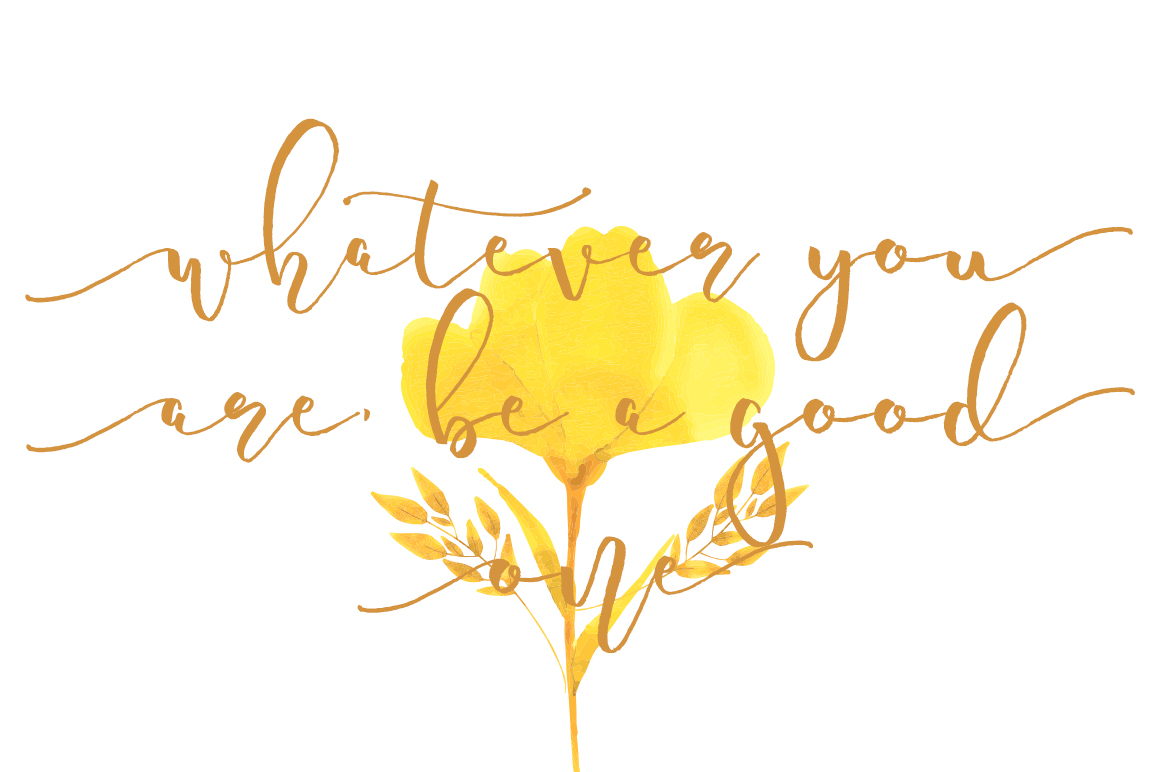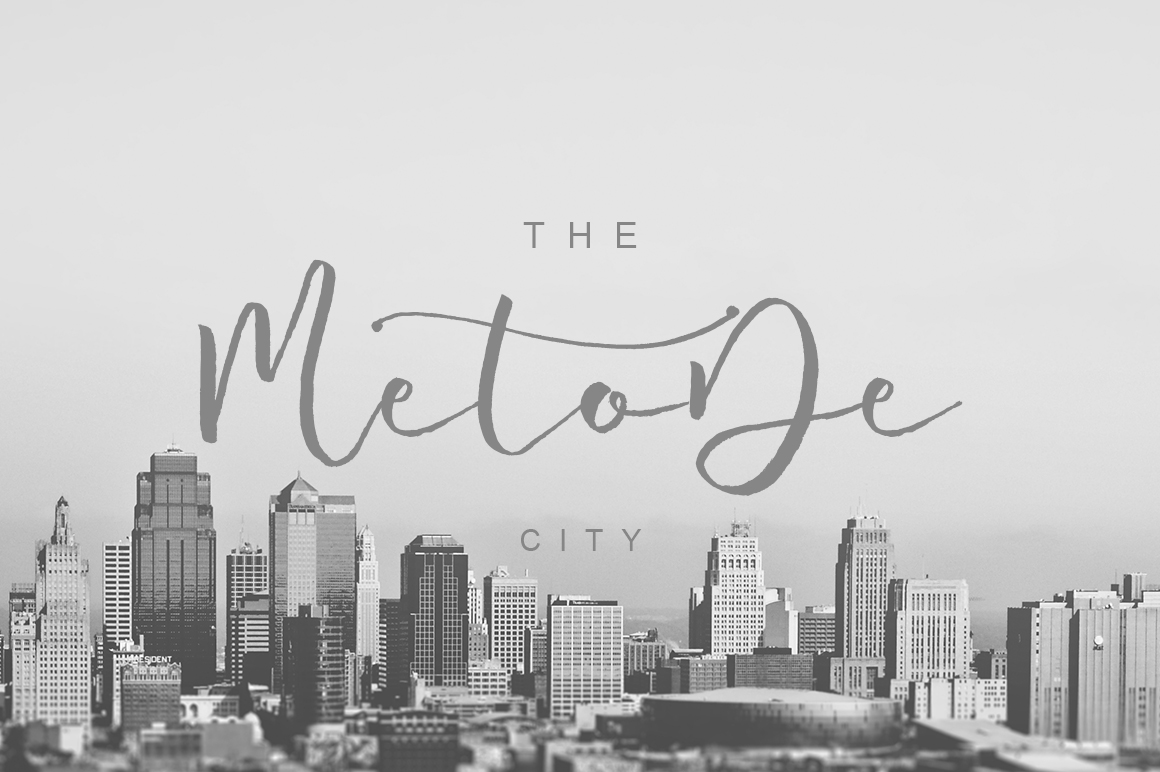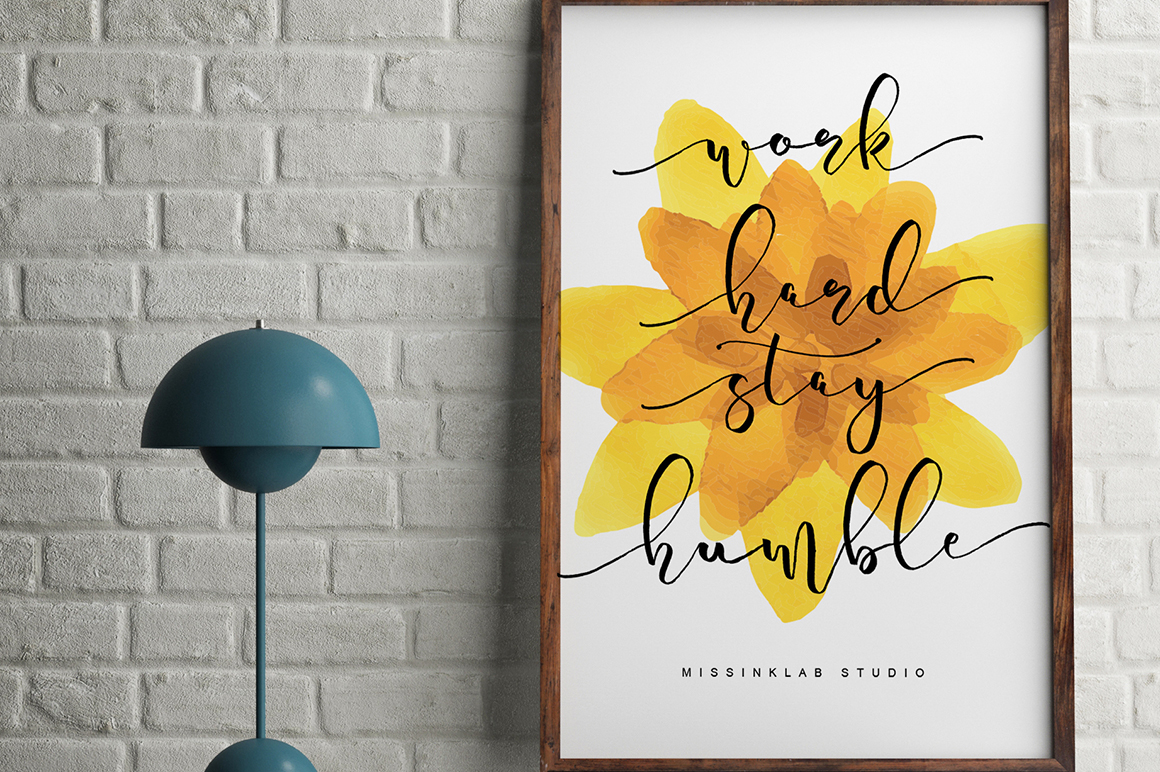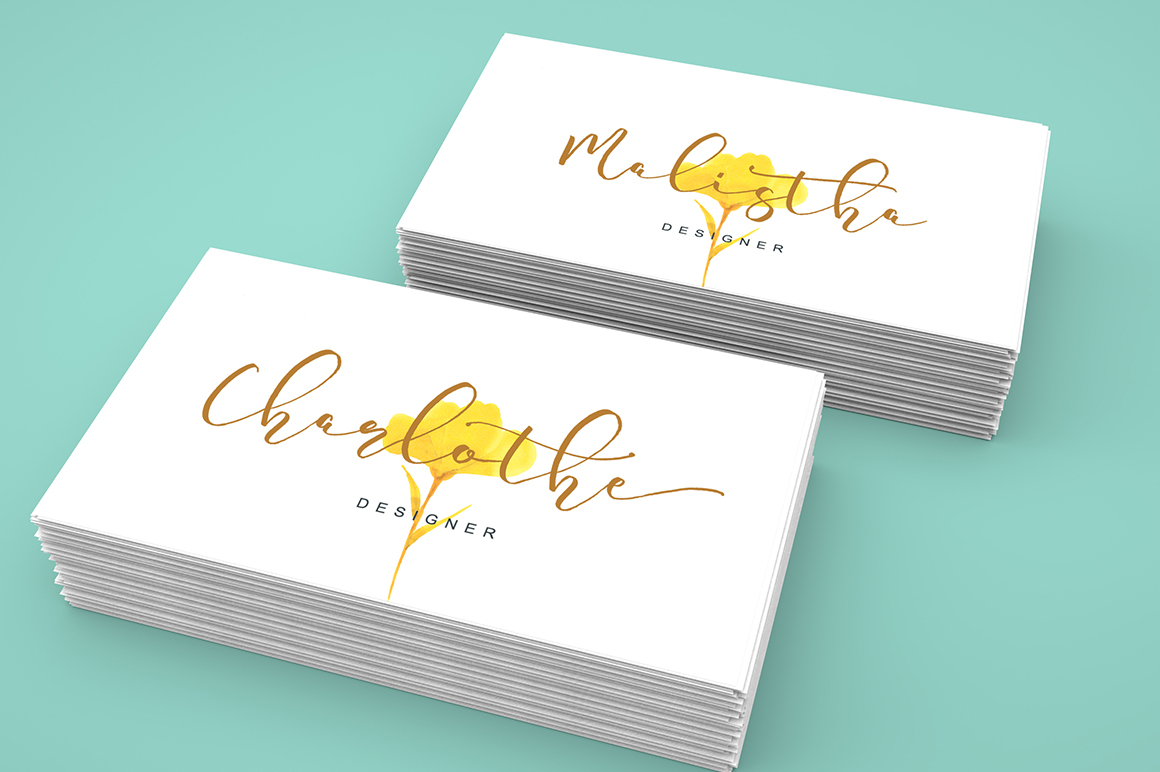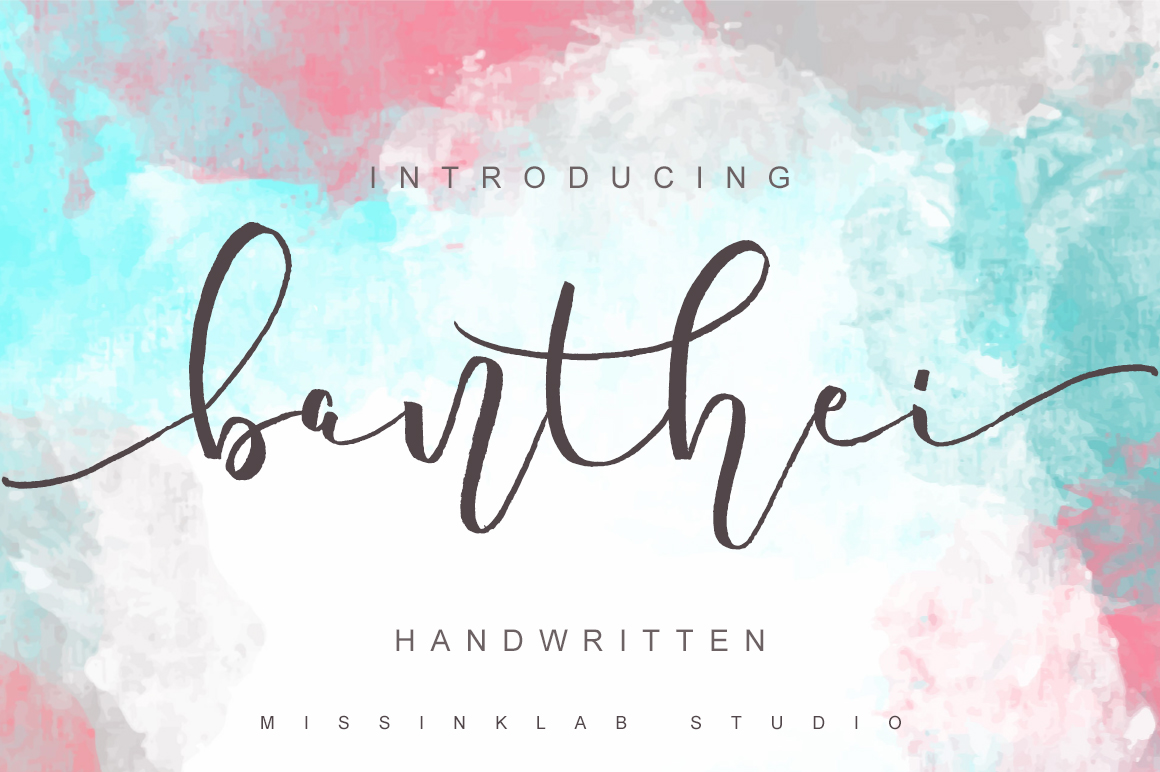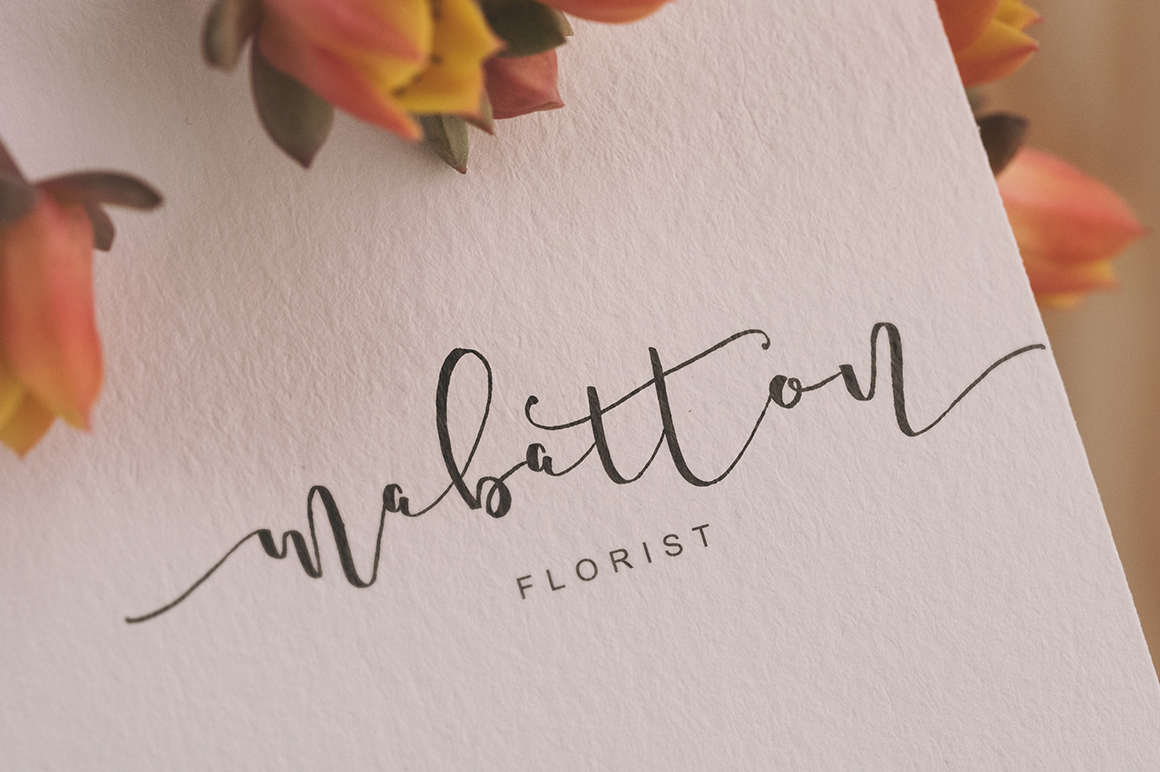
Banthei Font: Elevate Your Designs with a Modern Script Style
In the world of typography, a good font can make all the difference in the success of a design project. For designers and crafters looking for a unique and modern script style, Banthei Font is an excellent choice. This stunning handwritten font is perfect for a wide range of projects, from crafts to corporate branding, and is sure to elevate your designs to the next level.
What is Banthei Font?
Banthei Font is a modern script font that boasts a beautiful, handwritten aesthetic. Its elegant and fluid strokes make it perfect for designs that require a touch of sophistication and personality. The font is designed to be versatile, making it suitable for a variety of projects, including logos, branding, packaging, posters, and more.
Key Features of Banthei Font
So, what makes Banthei Font so special? Here are some of its key features:
- Modern Script Style: Banthei Font features a modern script style that is both elegant and trendy.
- Handwritten Aesthetic: The font has a beautiful, handwritten look that adds a personal touch to any design.
- Versatile: Banthei Font is perfect for a wide range of projects, from crafts to corporate branding.
- Elegant and Fluid Strokes: The font features elegant and fluid strokes that make it perfect for designs that require a touch of sophistication.
Use Cases for Banthei Font
Banthei Font is perfect for a variety of projects, including:
- Logo Design: Create a stunning logo for your brand with Banthei Font.
- Branding and Packaging: Use Banthei Font to create a cohesive brand identity that stands out.
- Posters and Flyers: Add a touch of elegance to your posters and flyers with Banthei Font.
- Craft Projects: Banthei Font is perfect for craft projects, such as handmade cards, gift tags, and more.
- Web Design: Use Banthei Font to add a touch of sophistication to your website.
Why Choose Banthei Font?
With so many fonts available, why choose Banthei Font? Here are just a few reasons:
- Unique and Modern: Banthei Font is a unique and modern script font that will make your designs stand out.
- High-Quality: The font is designed to be high-quality and easy to read.
- Versatile: Banthei Font is perfect for a wide range of projects.
- Elegant and Sophisticated: The font adds a touch of elegance and sophistication to any design.
Tips for Using Banthei Font
Here are a few tips for using Banthei Font in your designs:
- Pair with a Sans-Serif Font: Pair Banthei Font with a sans-serif font for a modern and elegant look.
- Use for Headings: Use Banthei Font for headings and titles to add a touch of sophistication.
In conclusion, Banthei Font is a stunning handwritten font with a modern script style that is perfect for a wide range of projects. Its elegant and fluid strokes make it perfect for designs that require a touch of sophistication and personality. With its versatility, high-quality design, and elegant aesthetic, Banthei Font is an excellent choice for designers and crafters looking to elevate their designs to the next level.